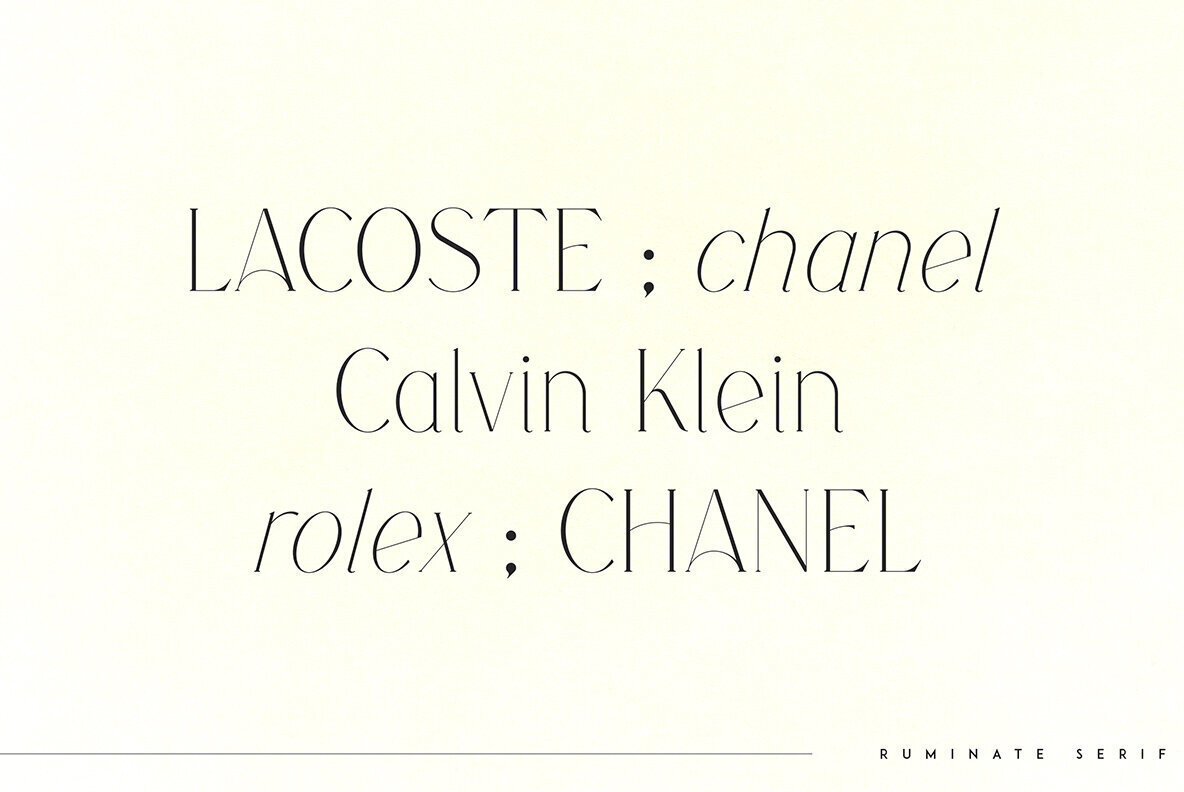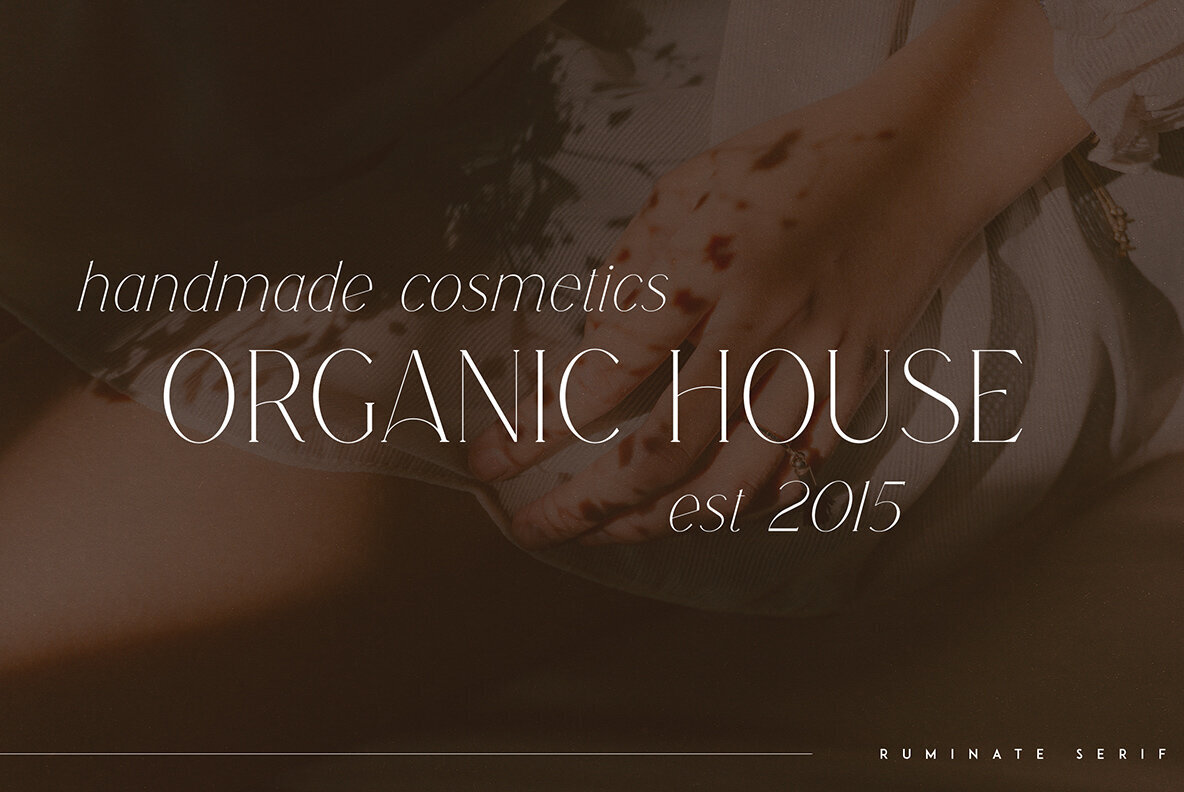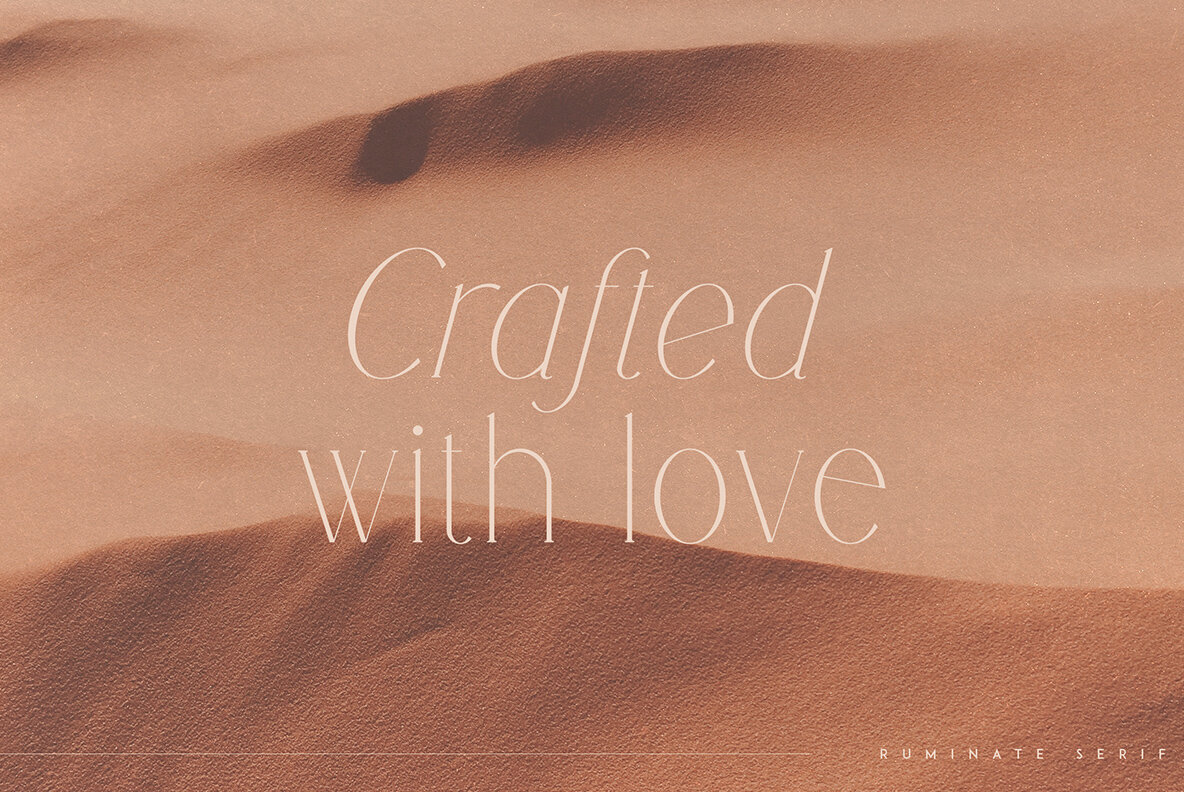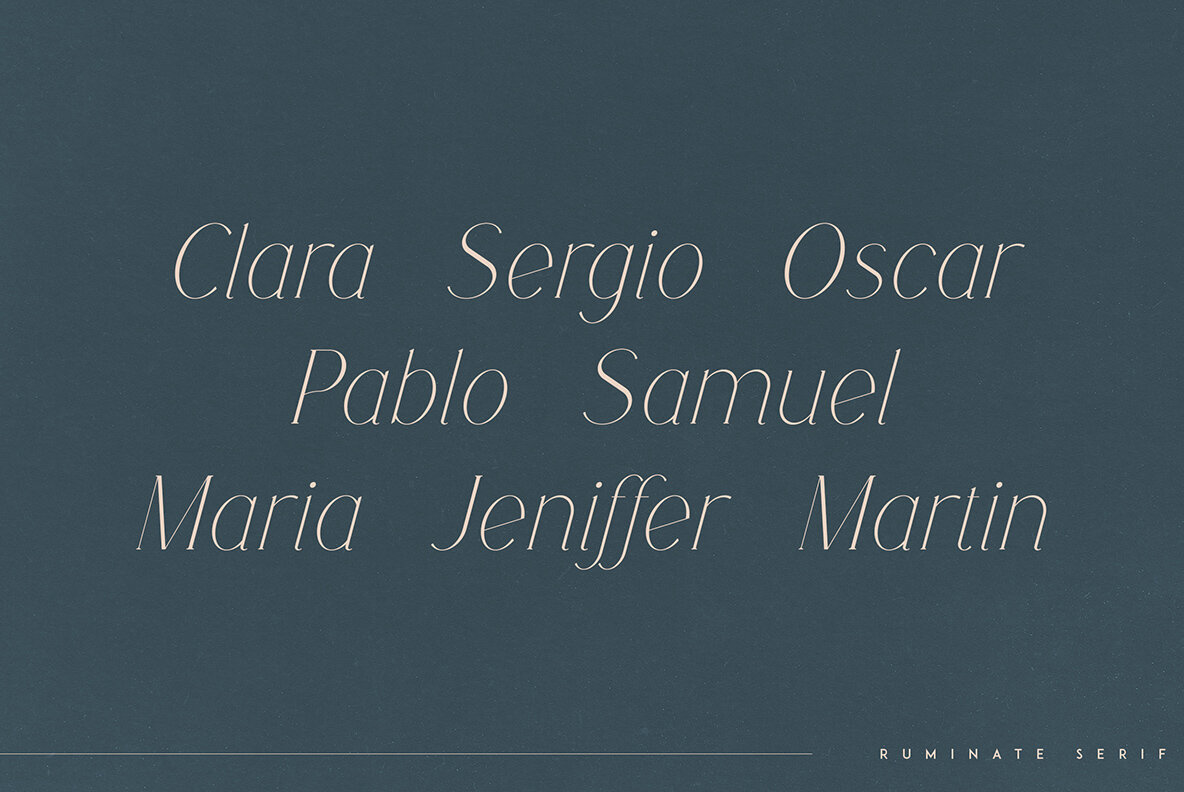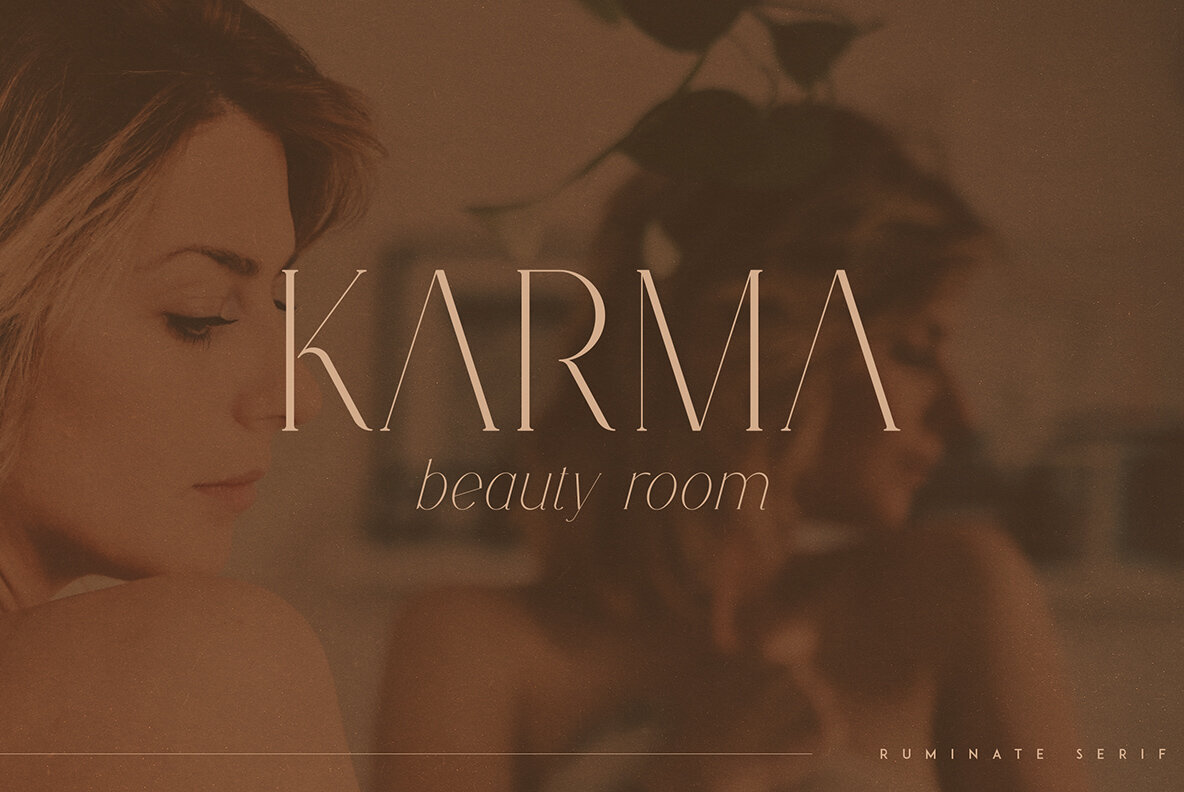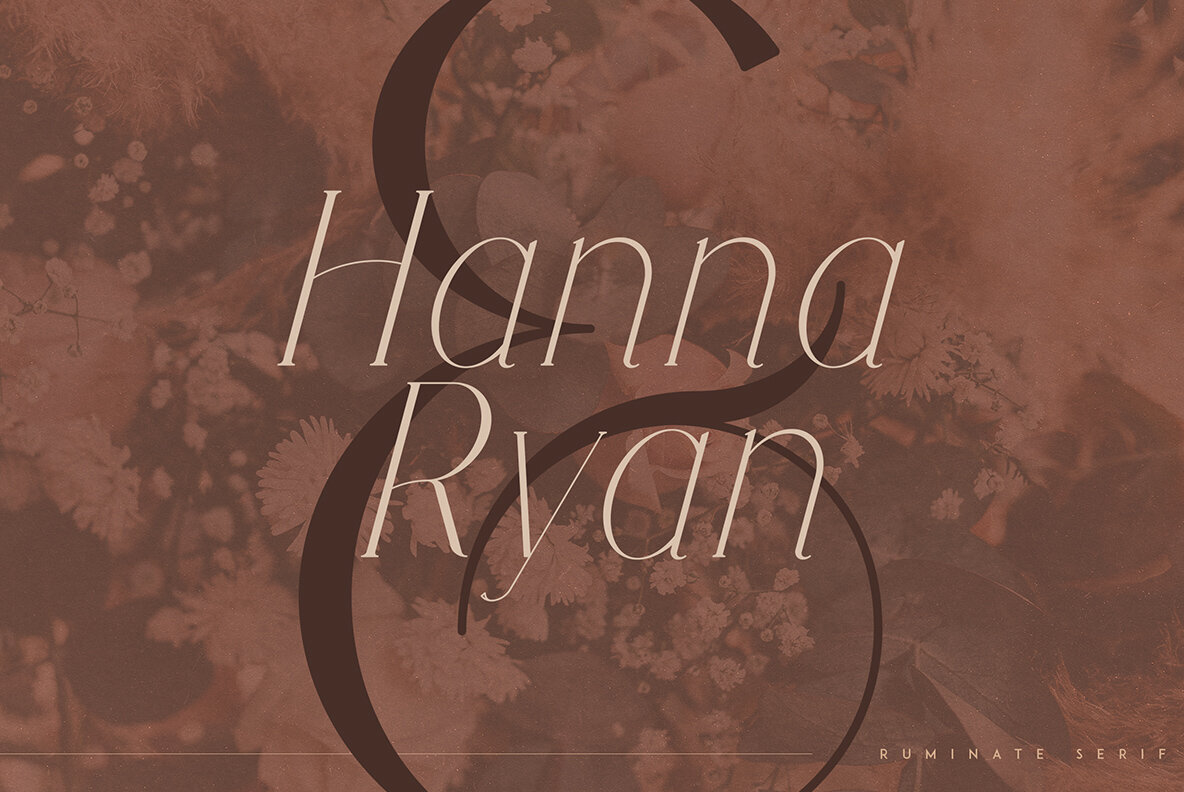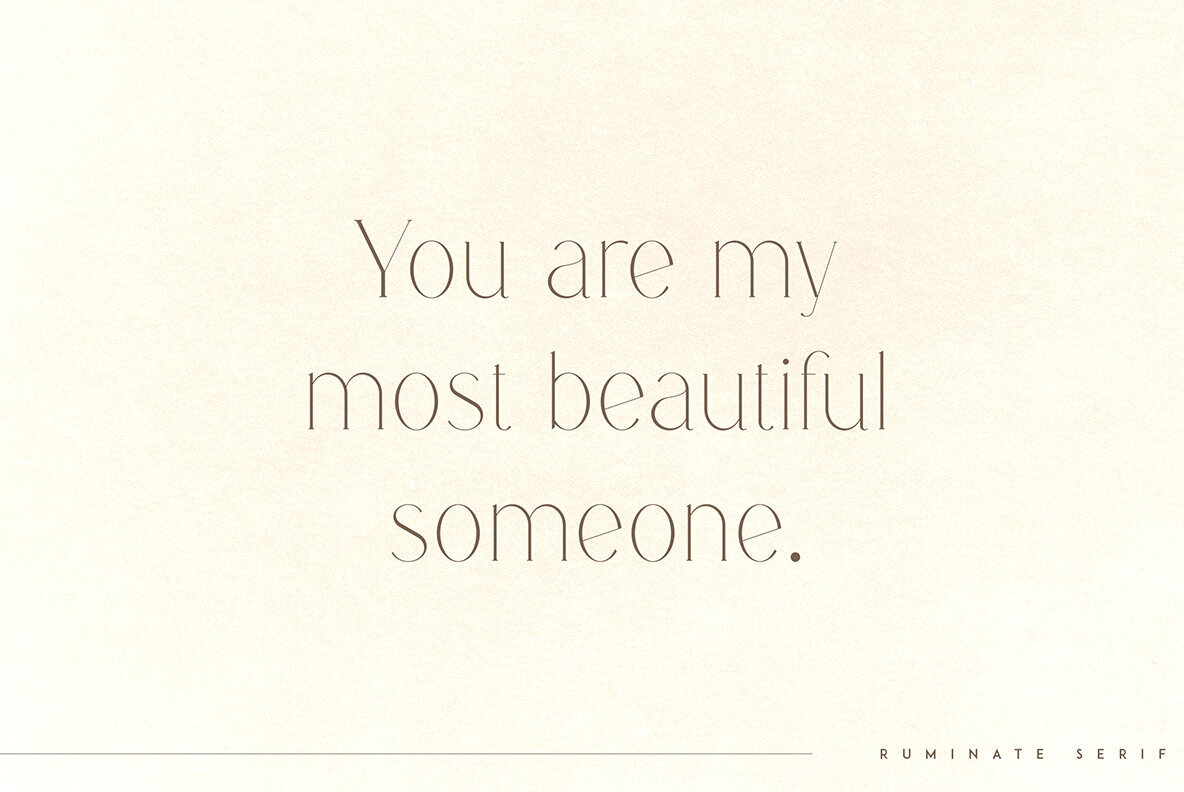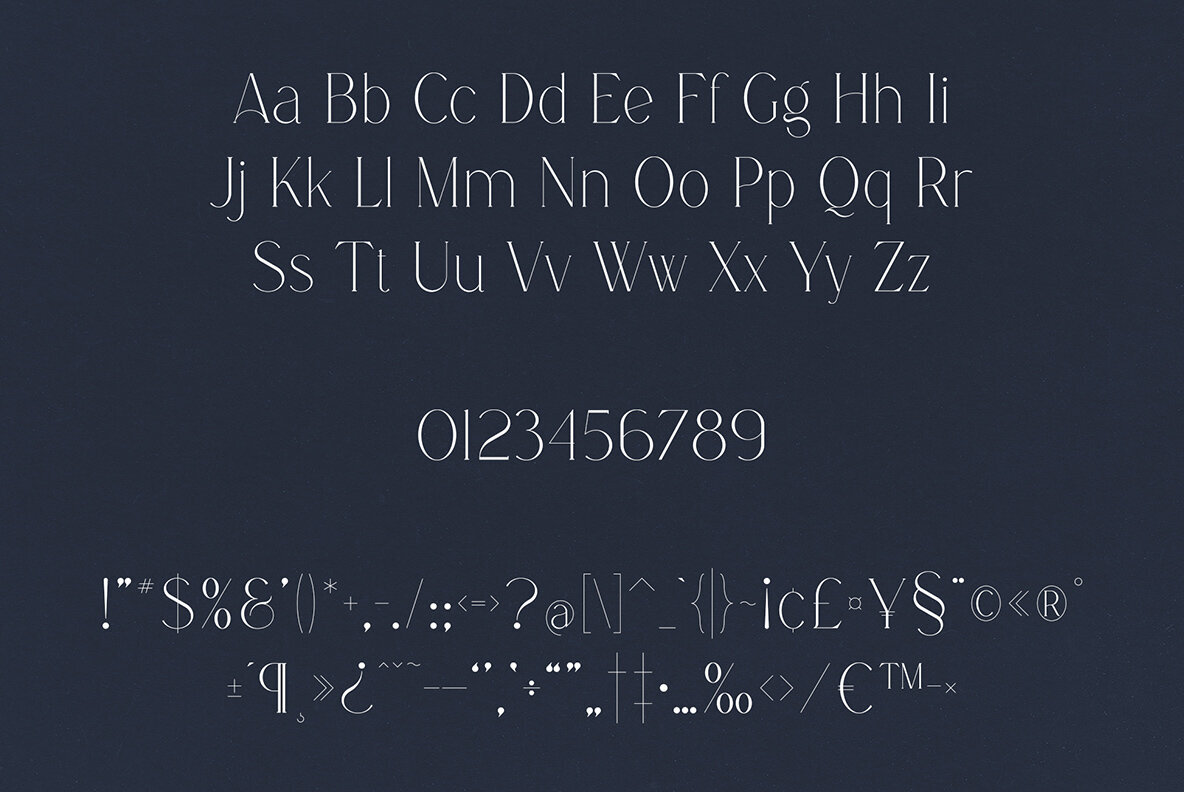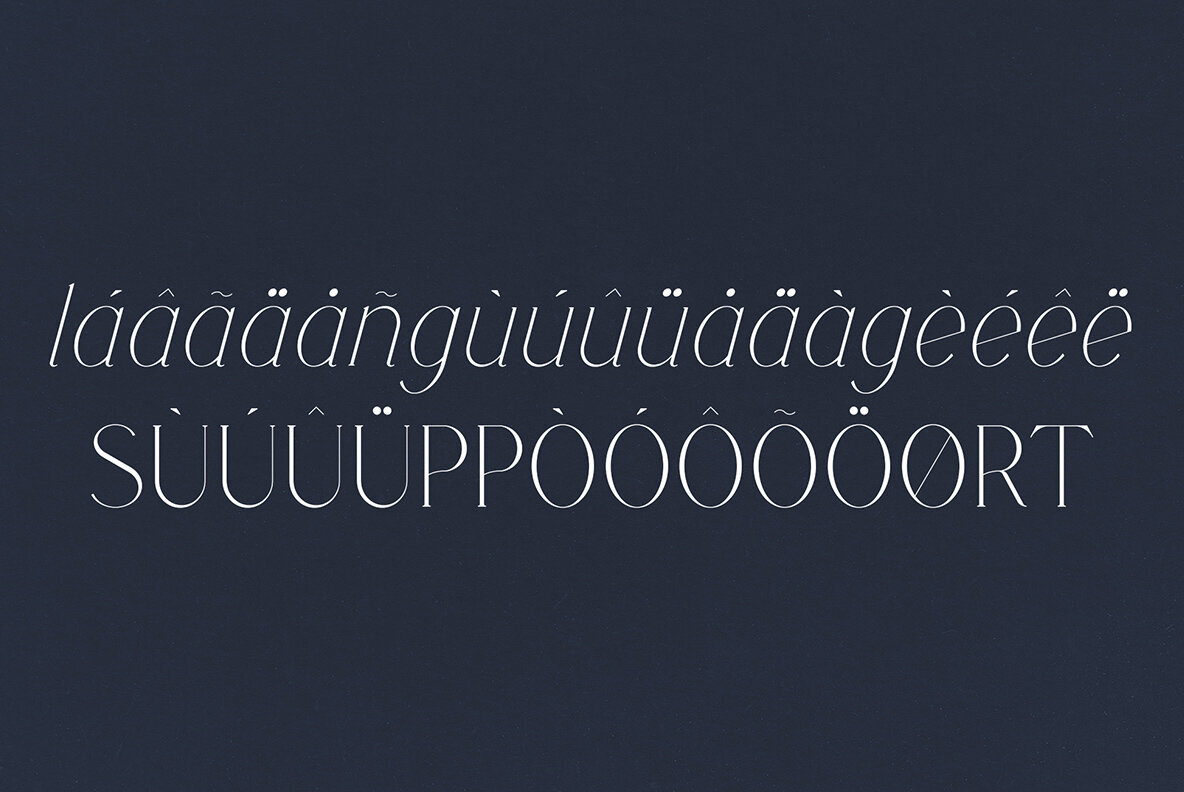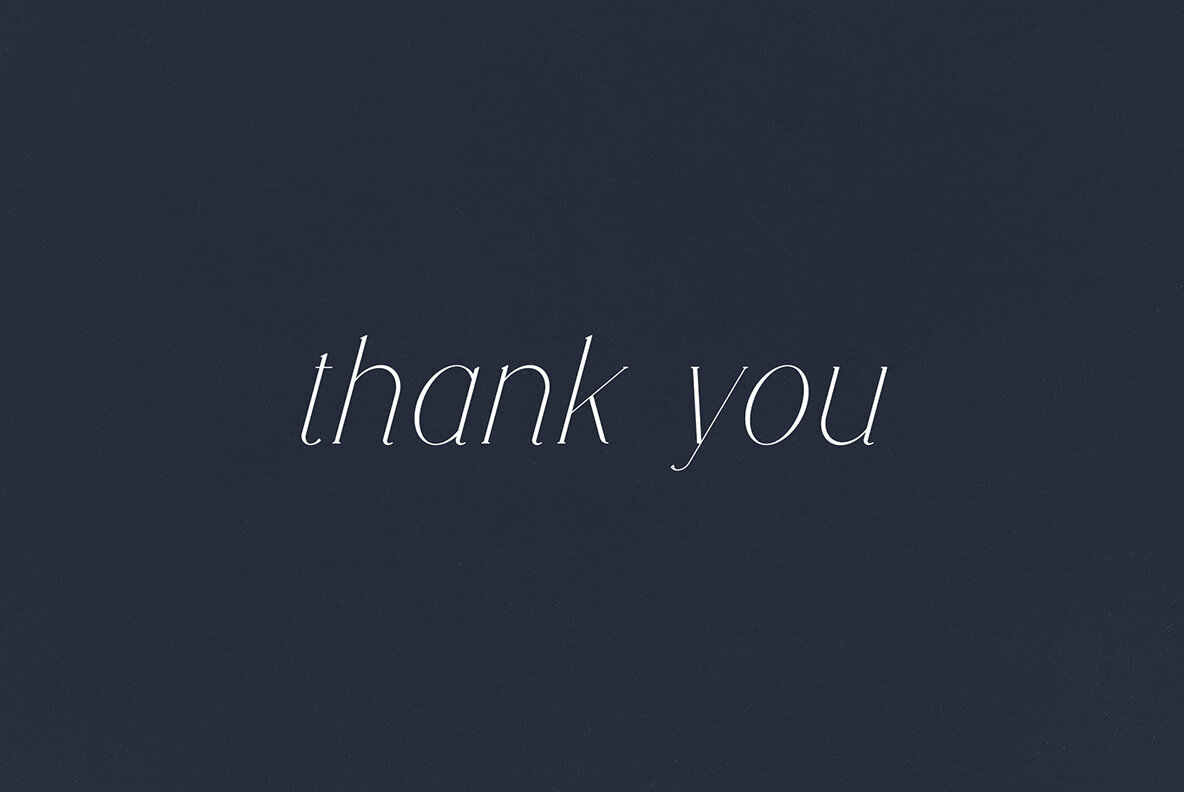
Ruminate Font
Ruminate, by VP Creative Shop, is a serif typeface that marries femininity with elegance, offering comprehensive multilingual support. Its adaptability makes it suitable for both large-scale and small-scale applications, catering to an array of design needs. Ideal for branding projects, home-ware designs, product packaging, and magazine headers, Ruminate transforms any project into a refined work of art. It also serves as a stylish text overlay, adding depth and sophistication to background images.Ruminate: A Versatile and Elegant Serif Typeface